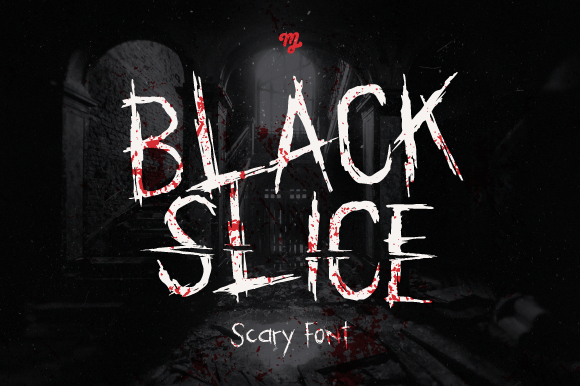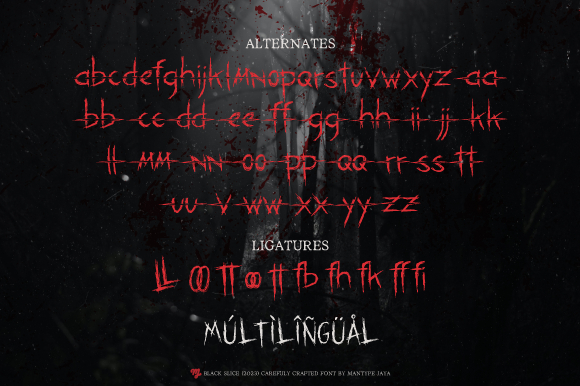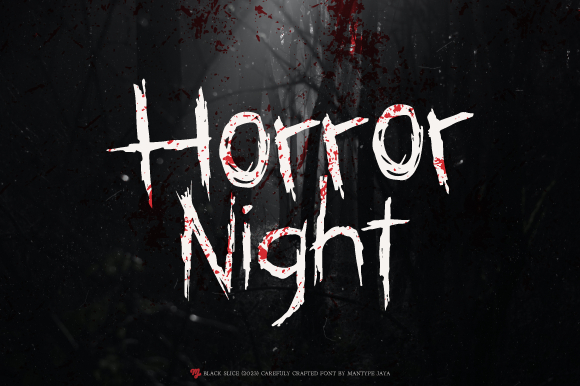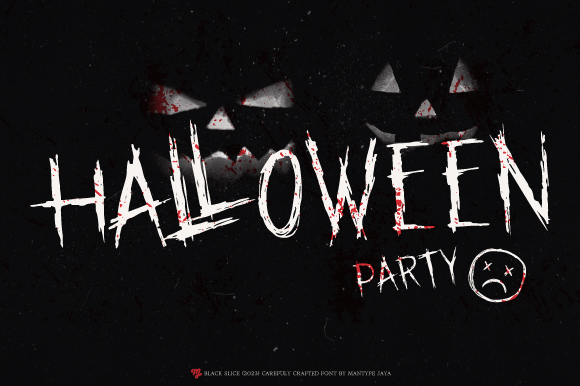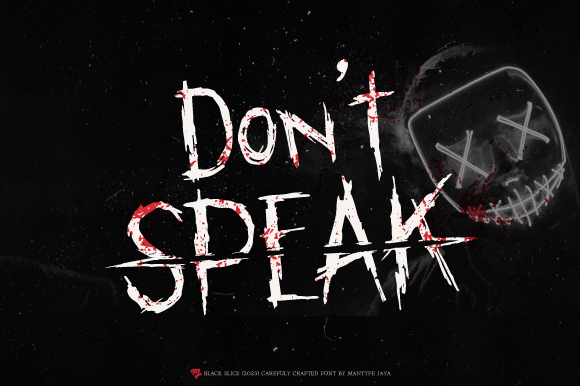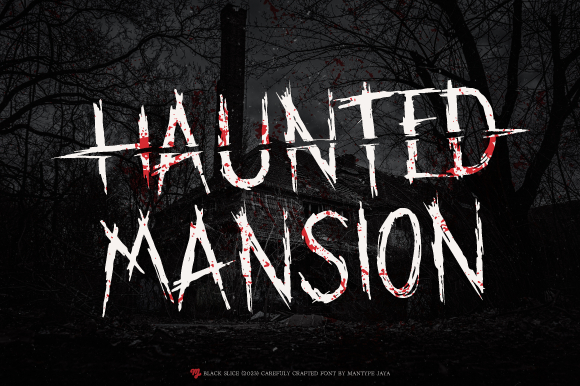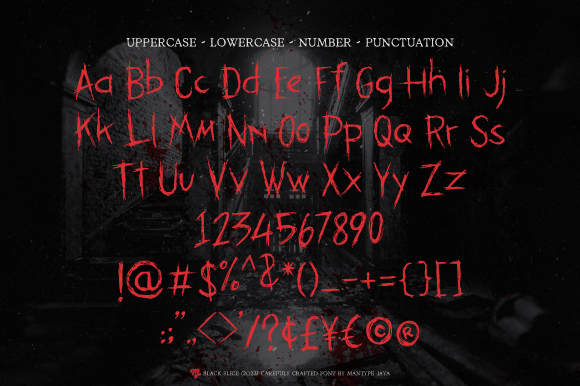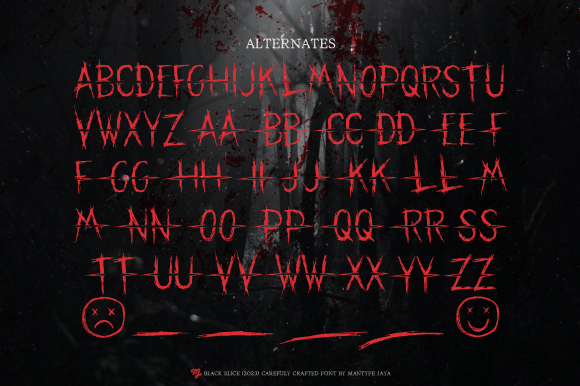
Black Slice Font
About Black Slice Font
Unleash your inner horror with our Black Slice font. Black Slice is a font inspired by movies and mystery stories. Made to resemble a sharp object scratch on a hard surface. Perfect for creating a creepy atmosphere in your projects. This font is PUA encoded which means you can access all of the scary glyphs with ease!